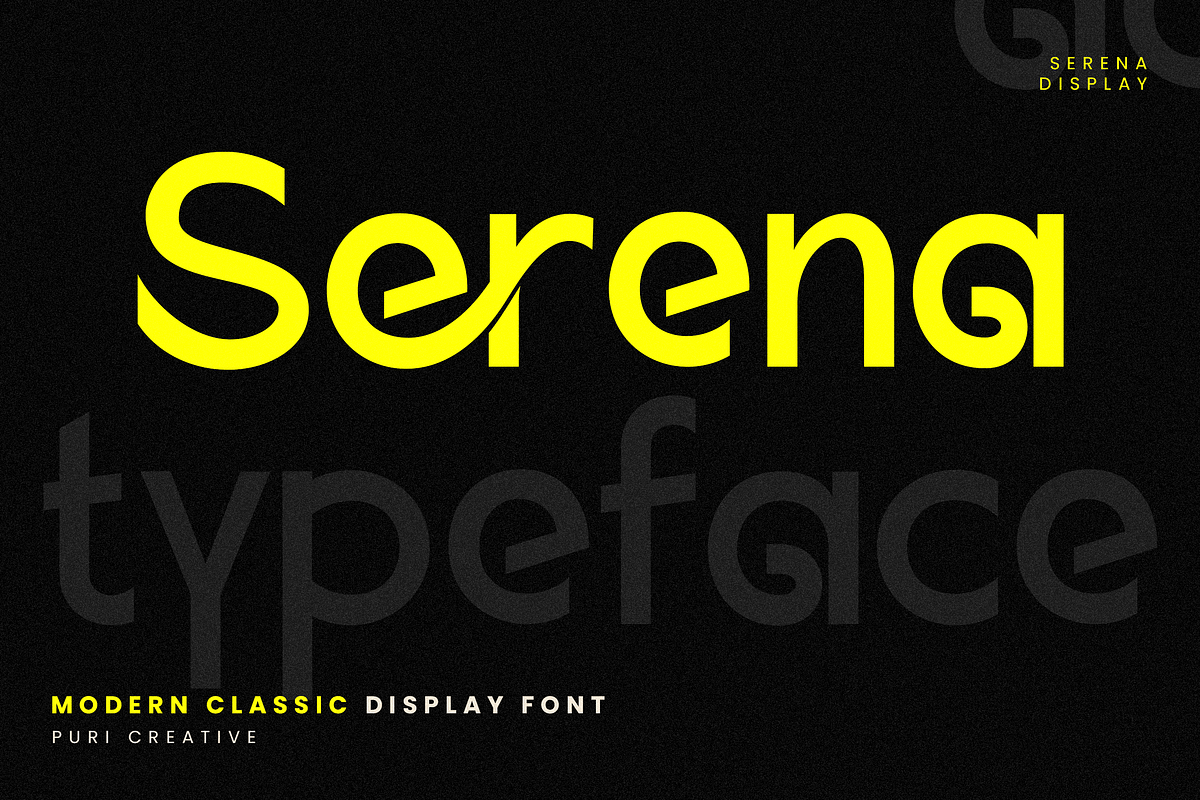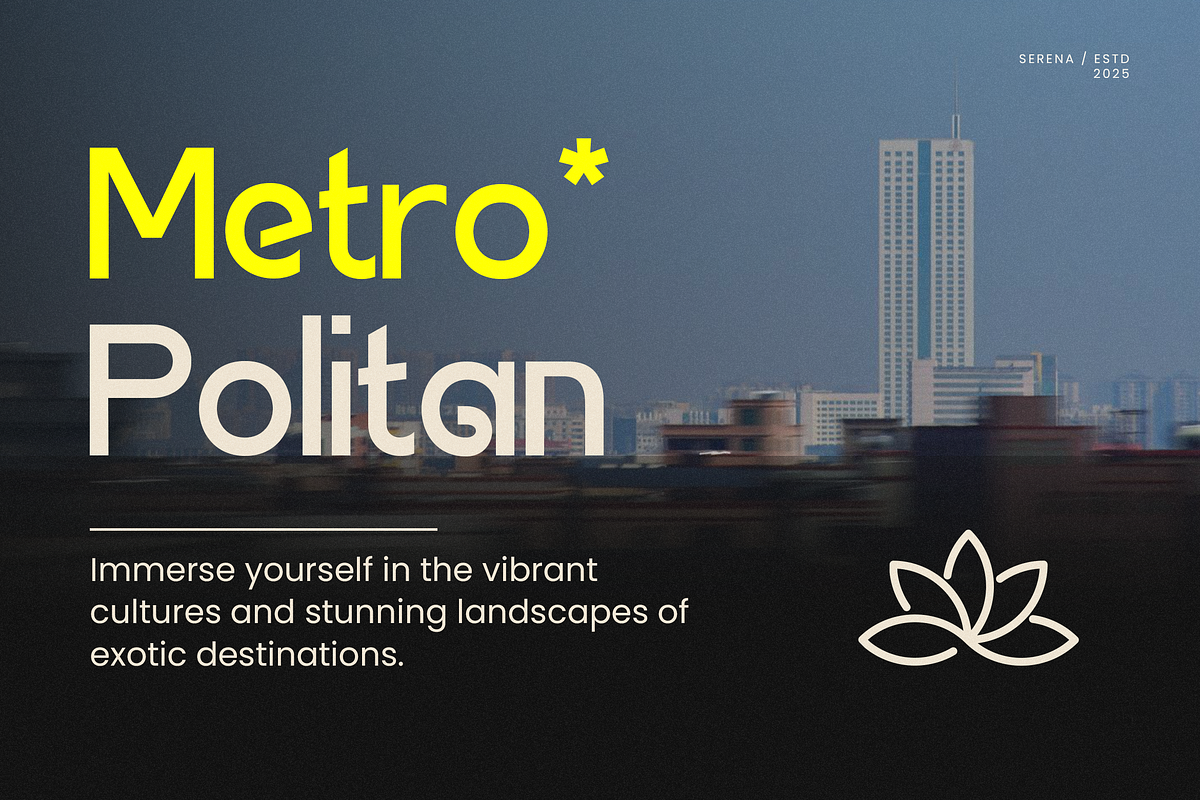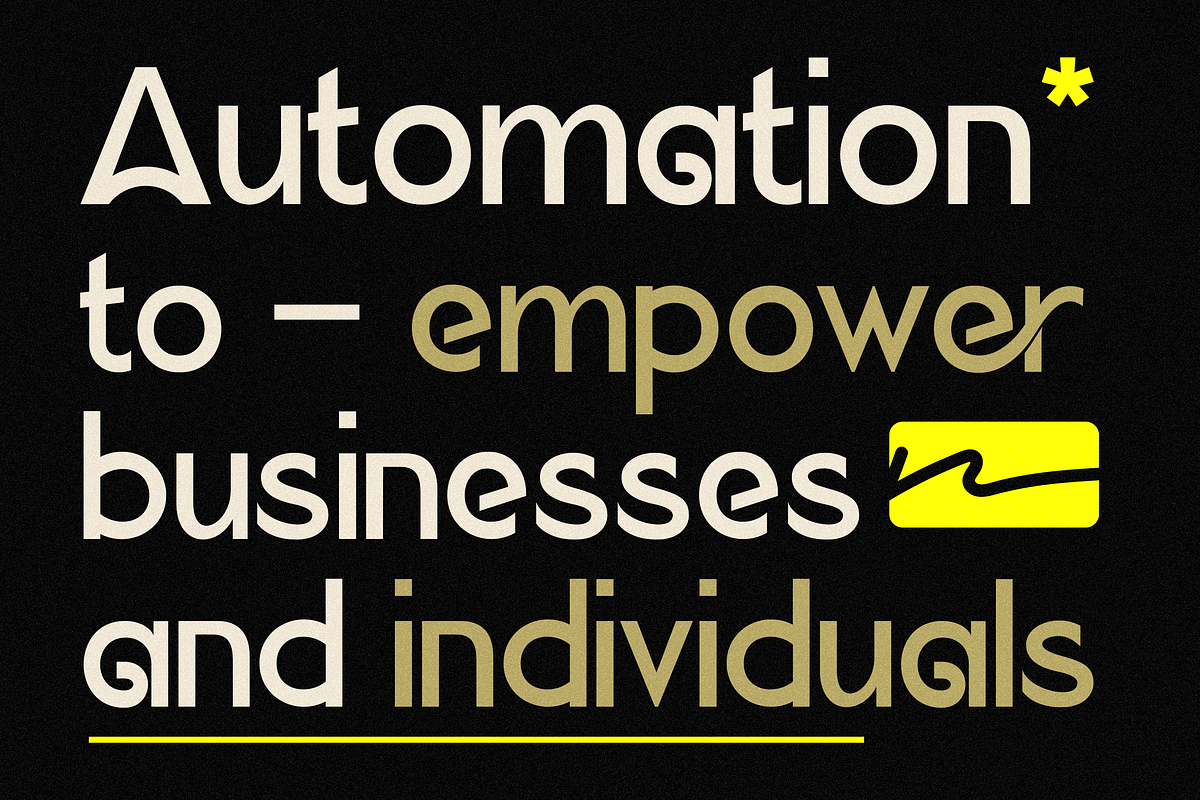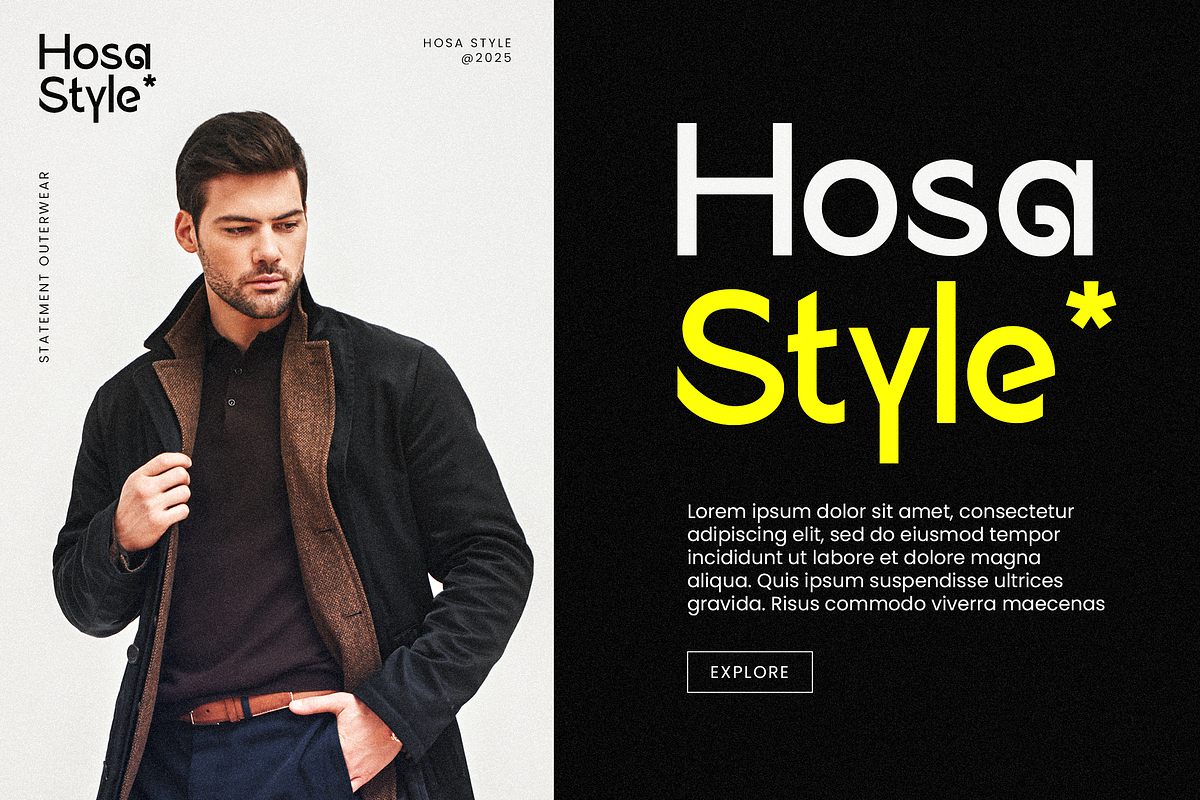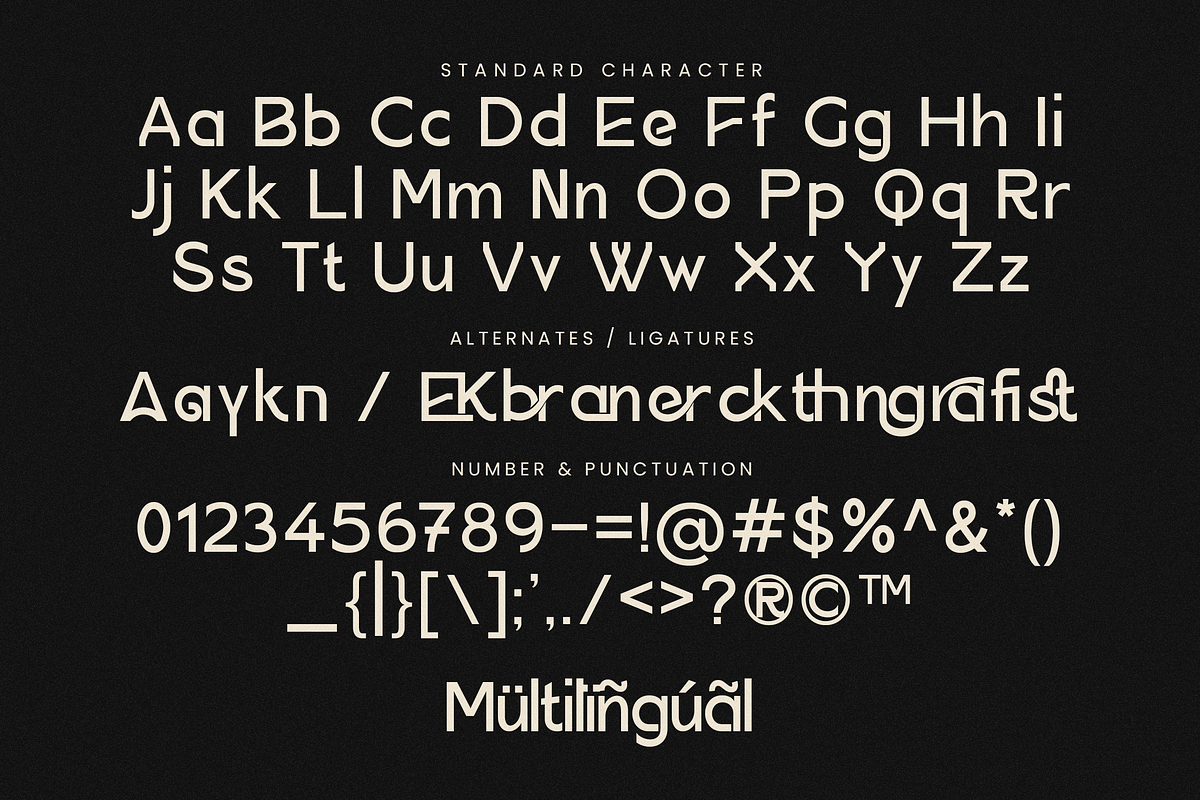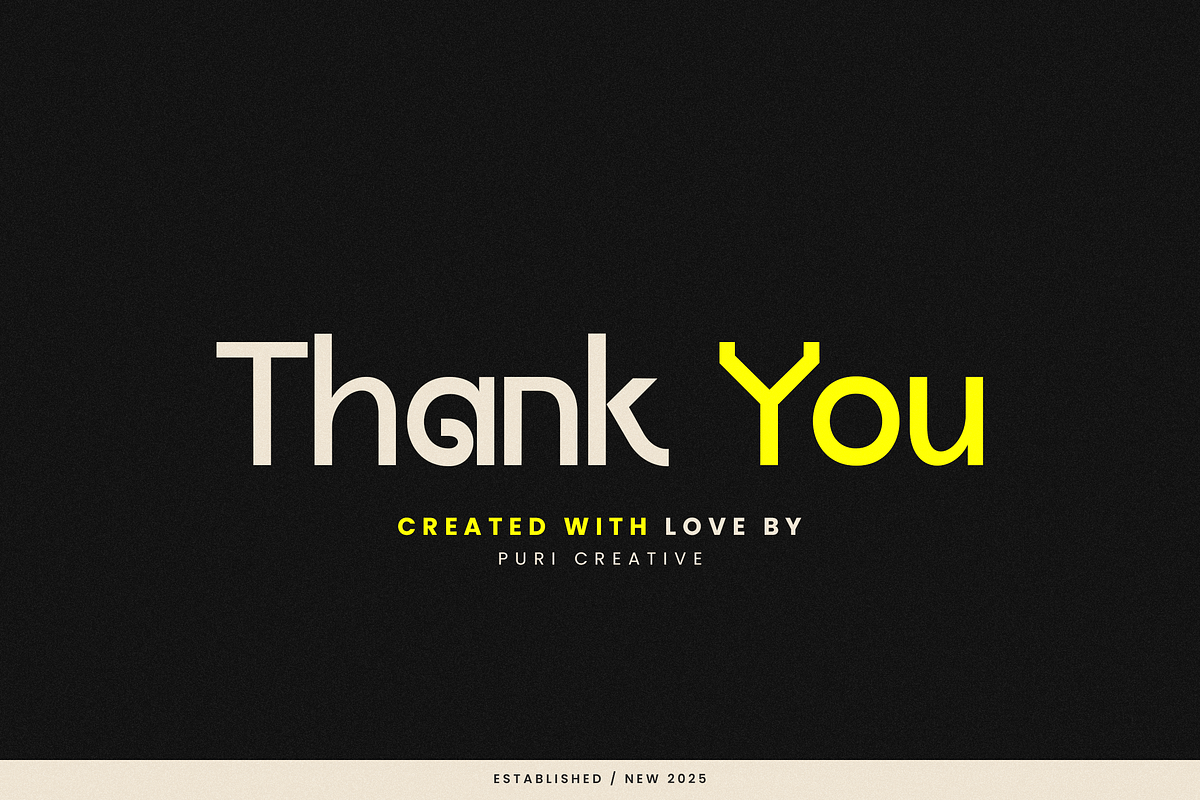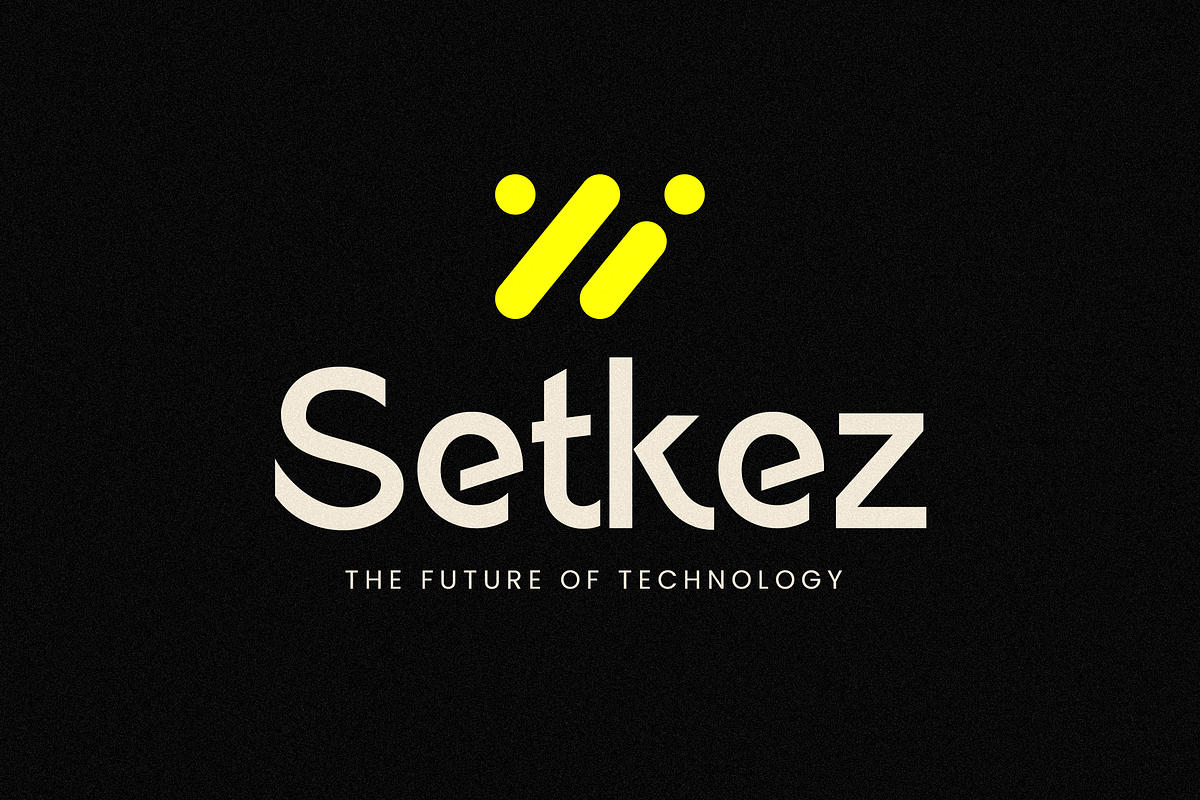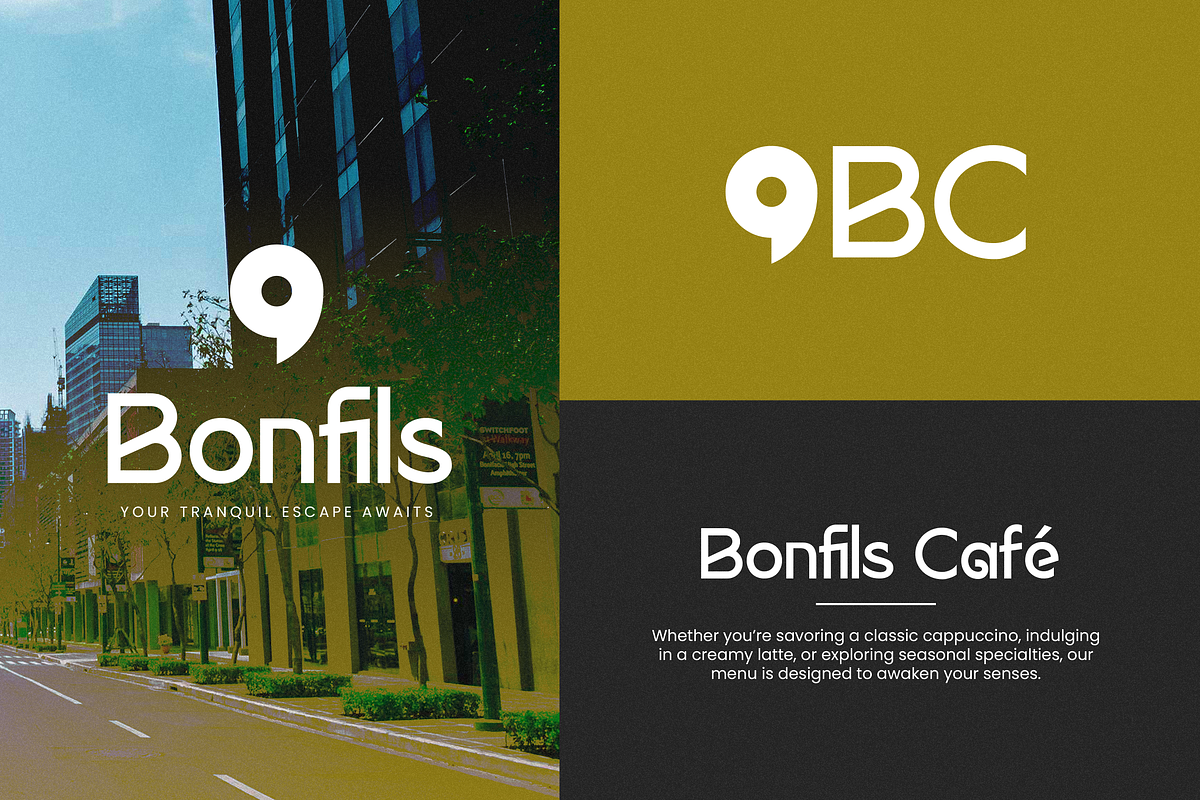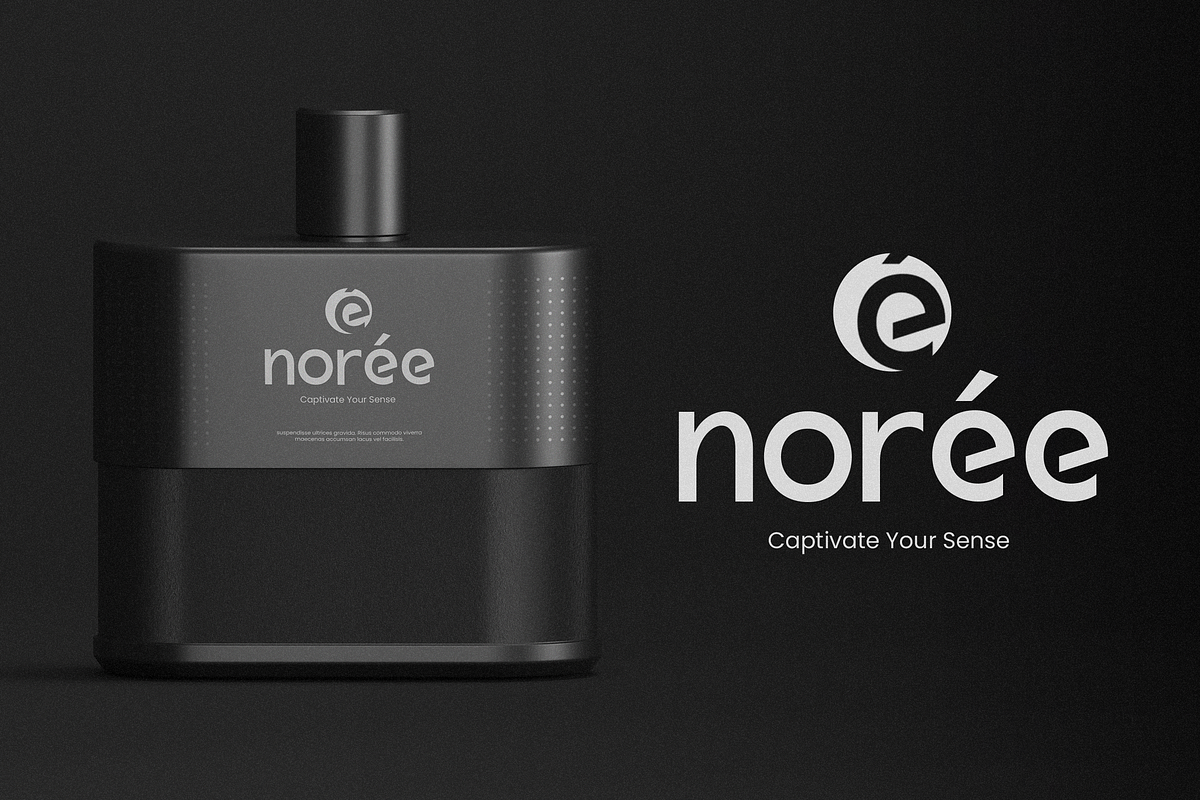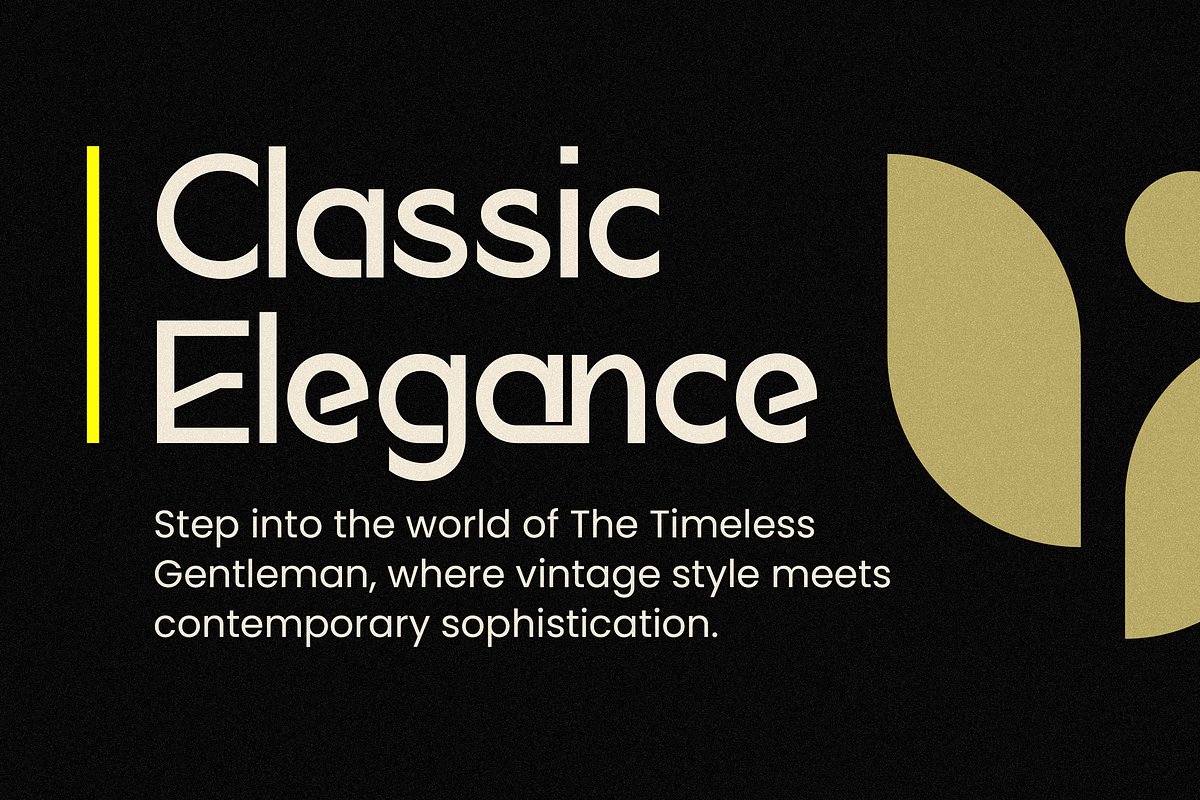
Serena - Modern Classic Sans Serif
"Serena" is a Modern Classic Sans Serif Font crafted for those who appreciate minimalism with a touch of sophistication. Its balanced letterforms and crisp edges make it the perfect choice for corporate identity, tech startups, luxury branding, and editorial layouts. Whether used in print or digital media, Serena offers a clean, modern aesthetic that stands out with effortless elegance. This font is PUA encoded, which means you can access all of the glyphs with ease!